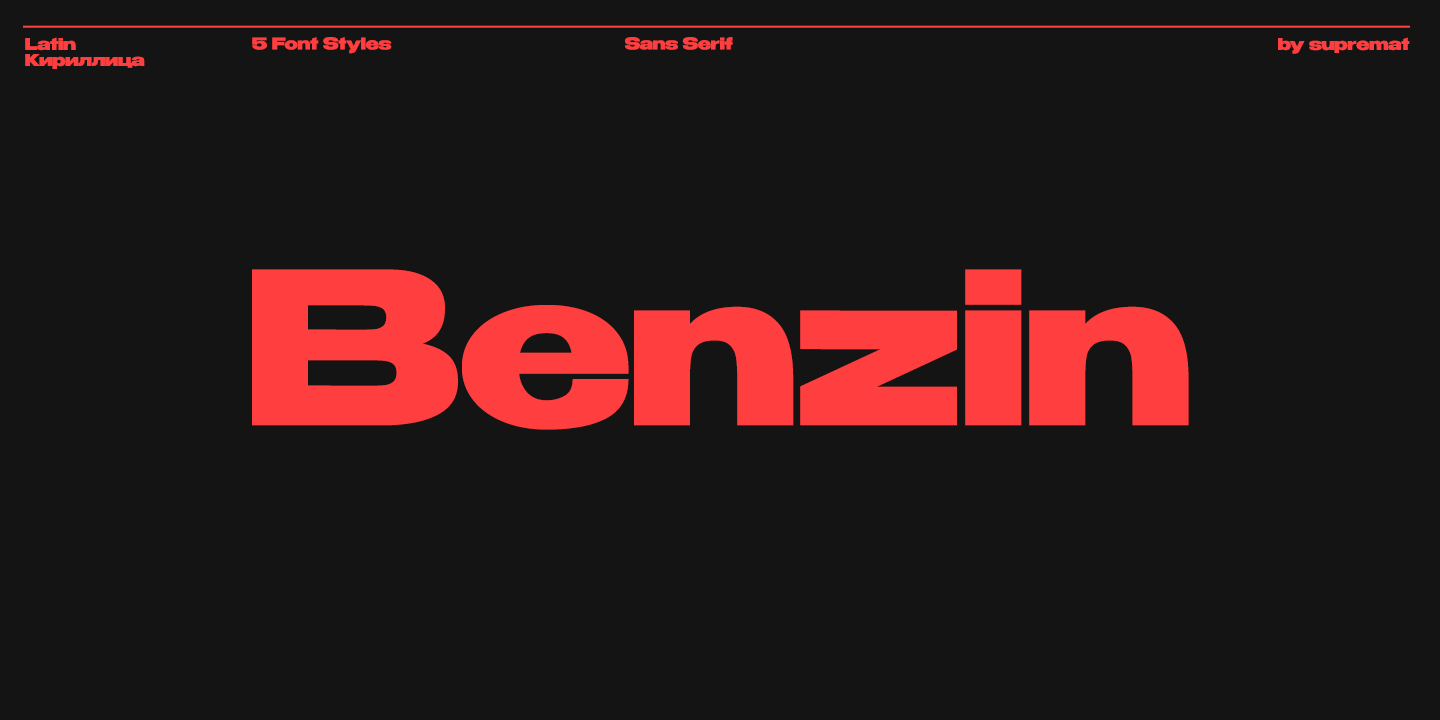
Benzin Font is ideal for automotive industry branding, gas station signage, racing team communications, motorcycle club materials, car dealership advertising, petroleum company identity, automotive magazine headers, speed racing promotions, garage workshop branding, and high-octane marketing campaigns. This dynamic typeface creates powerful automotive atmosphere in both traditional print and digital racing applications.
What makes Benzin Font exciting is its high-energy character design that perfectly captures the raw power and adrenaline of automotive culture with industrial strength. The font features bold, aggressive letterforms with fuel-inspired details and mechanical precision that evoke roaring engines, burning rubber, and high-speed performance. Its dynamic design establishes an atmosphere of automotive power and racing excitement that resonates with car enthusiasts and speed lovers.
Benzin Font family includes automotive variations: Regular, Bold, Black, Condensed, Extended, and Racing versions. Each variant maintains the font's high-octane personality while providing designers with powerful options for creating dynamic typography systems and automotive communication materials.
This exceptional automotive typeface brings authentic racing credibility to projects requiring high-energy presentation. Whether you're designing car brands, racing marketing, or automotive event materials, Benzin Font Free Download delivers outstanding power and automotive sophistication. The font's dynamic proportions and mechanical details ensure memorable impact across various automotive applications.
Automotive companies and racing brands recognize how Benzin Font perfectly embodies the spirit of car culture and high-performance racing. Its powerful foundation combined with industrial strength makes it essential for automotive and racing design projects. Download today and fuel your designs with this exceptionally dynamic automotive typography.